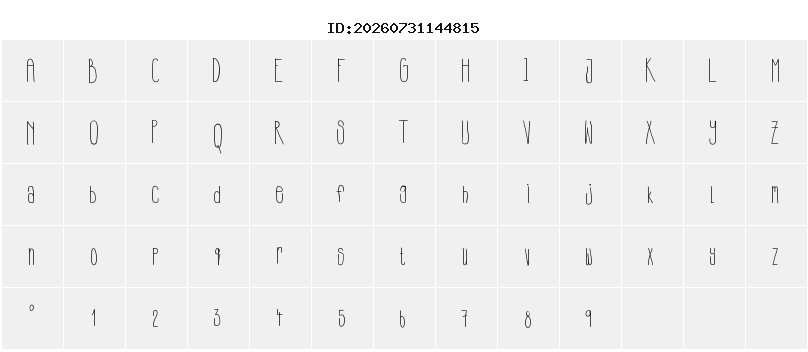
About LewisBlues.ttf
LewisBlues.ttf is a modern, elegant sans-serif font designed for ultimate readability and visual harmony. Perfect for branding, headlines, web design, and print materials.